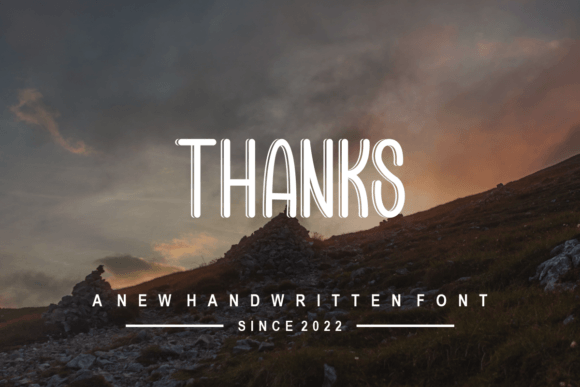
Introduction to Gussblom Shadow Font Font
Fonts play a crucial role in design, and the Gussblom Shadow Font font is a typeface that brings both character and versatility to any project. Whether you’re working on a branding project, a website, or a print design, the Gussblom Shadow Font font offers a unique style that can elevate your work.
Gussblom Shadow is a sweet and elegant sans serif display typeface.
It retains a classy calligraphic influence while feeling contemporary and fresh Fall in love with it and take your project to the highest level.
The Gussblom Shadow Font font is more than just a typeface – it’s a design tool that helps you communicate your message with style and clarity. Its unique character set and versatile design make it suitable for a wide range of applications, from elegant invitations to bold headlines.
With its carefully crafted letterforms and balanced proportions, the Gussblom Shadow Font font ensures readability and visual appeal across all mediums.
What makes Gussblom Shadow Font font special?
The Gussblom Shadow Font font stands out with its unique design, exceptional readability, and versatility across various design applications.